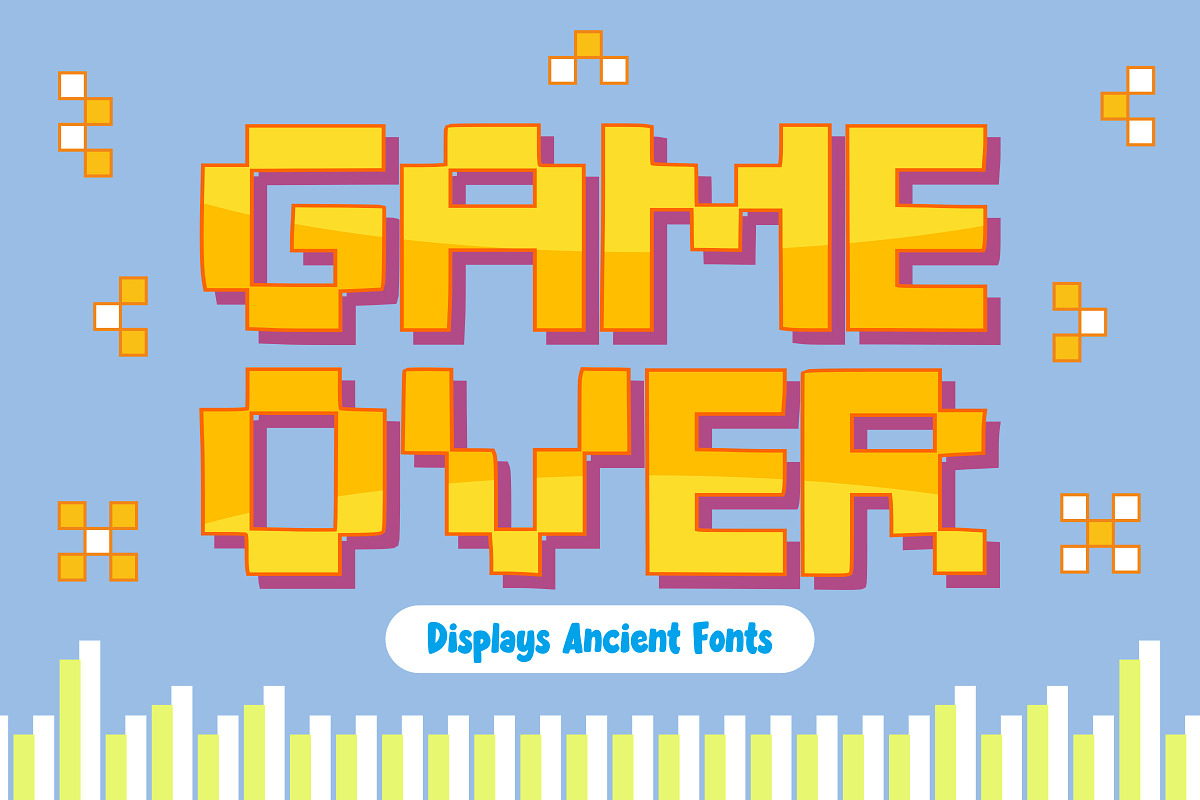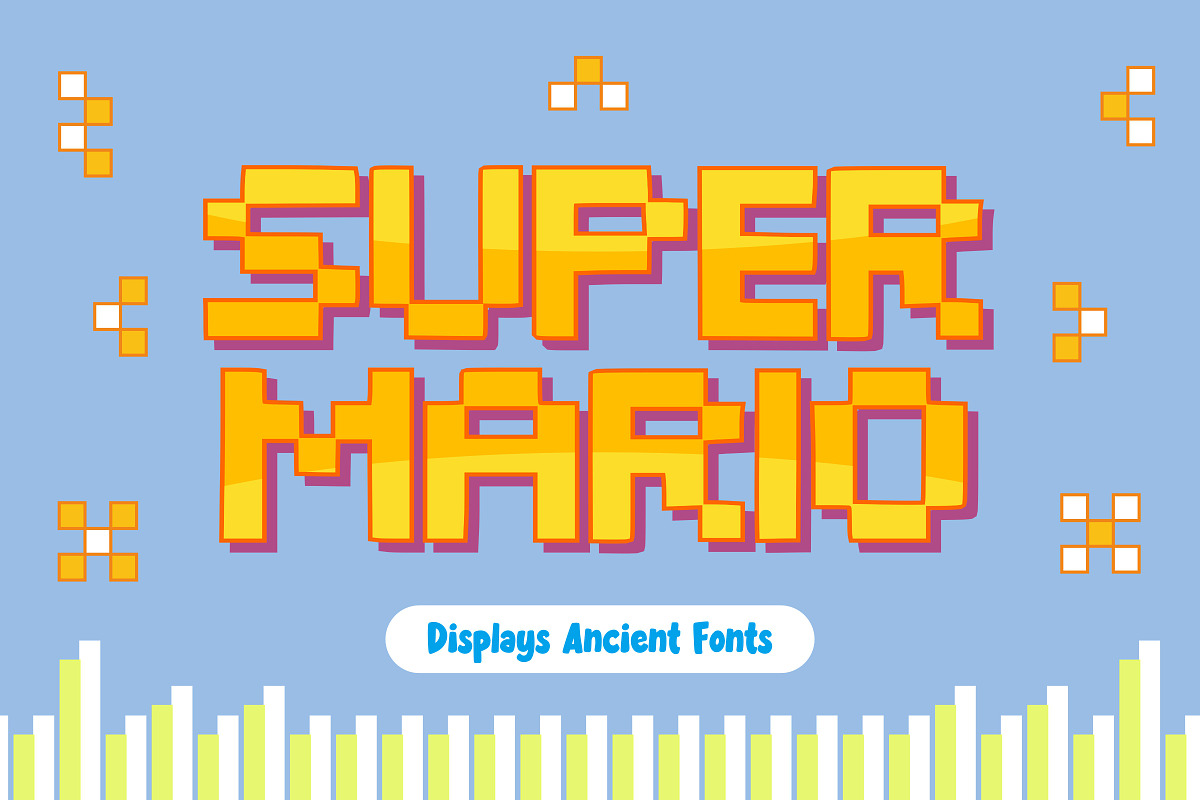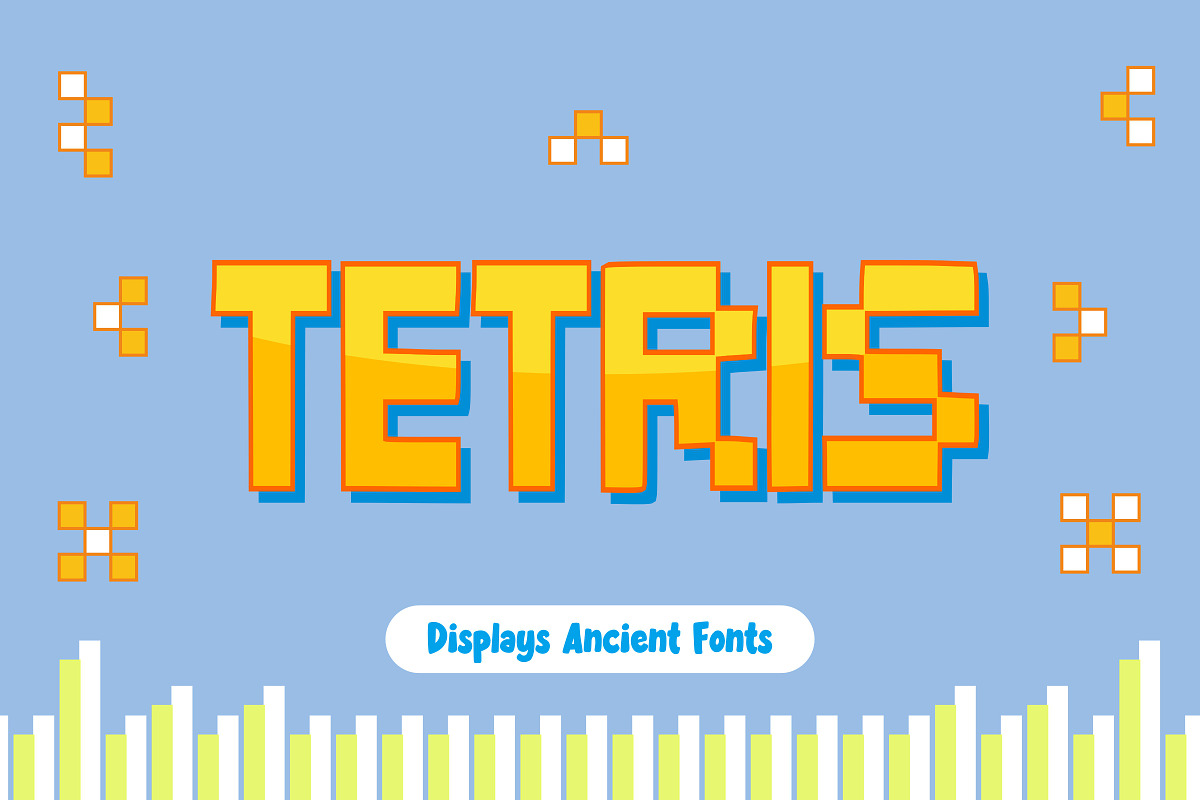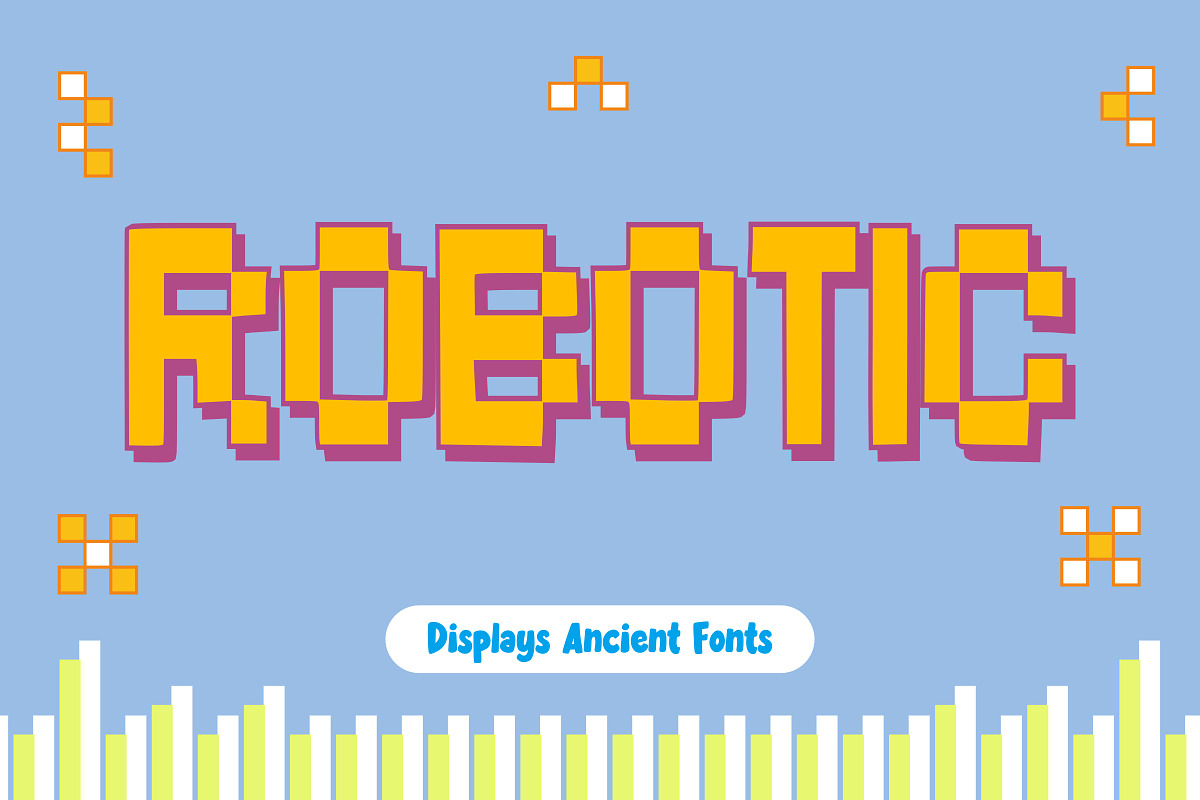
Game Over - Kids Font Types
GAME OVER is a font that has a distinctive character that is very strong and elegant to use. With flowing angles and smooth lines, each letter tells a nostalgic story of childhood games, inviting you to immerse yourself in the art of expression. Whether for animations, stickers, or posters, this font adds a touch of sophistication and charm to any project.